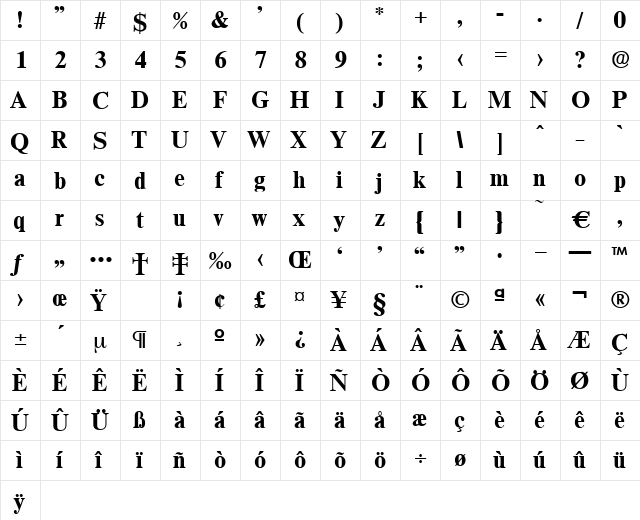
Thames-Bold Regular
Design Context for Thames-Bold Typeface
Thames-Bold offers clean, dependable letterforms without strong stylistic allegiance, making it a practical choice for designers who need flexibility. Its bold stroke weight gives it real presence on the page.
Pro Tip: Pair Thames-Bold with a font of contrasting weight or personality to build a more expressive typographic hierarchy.